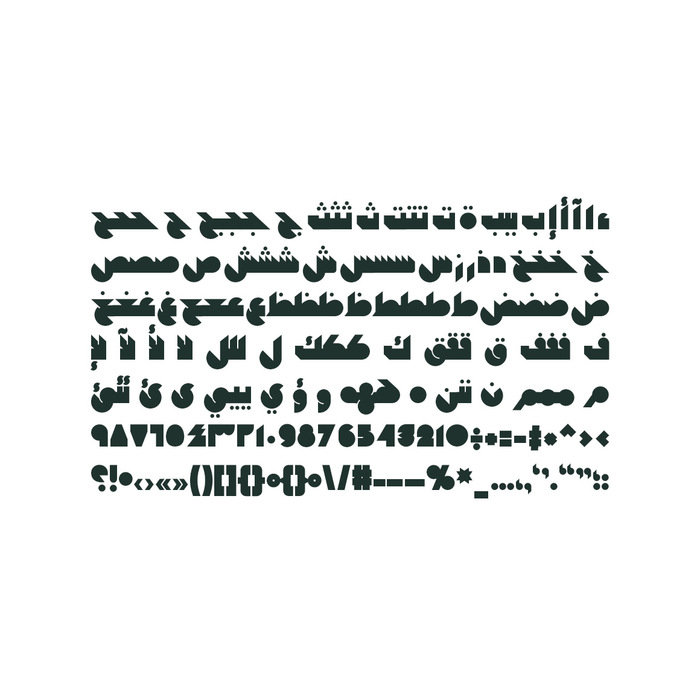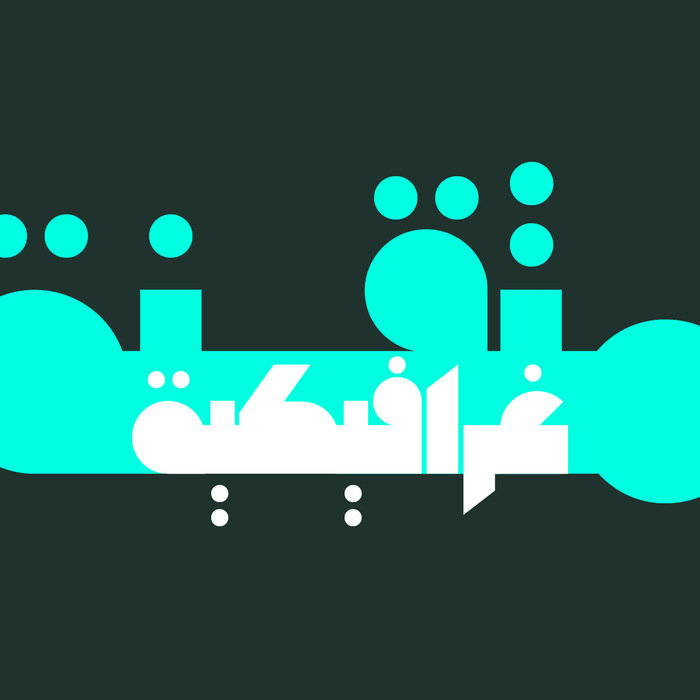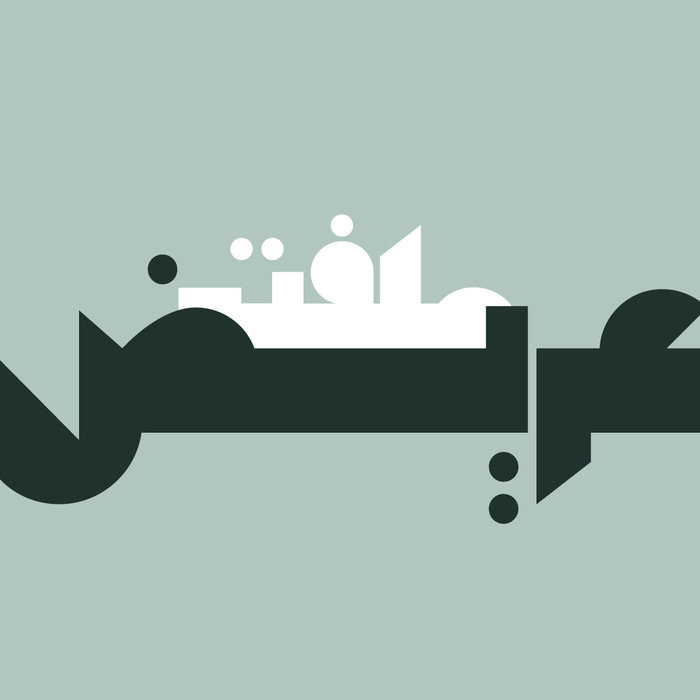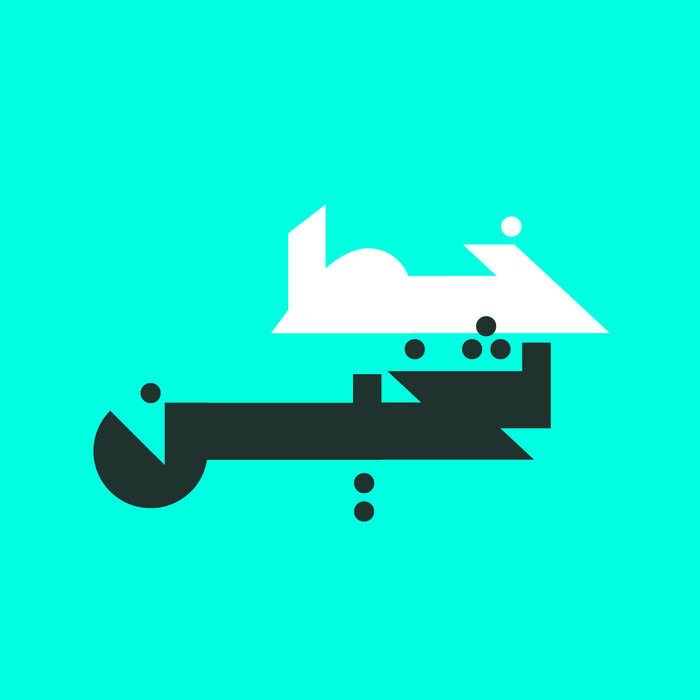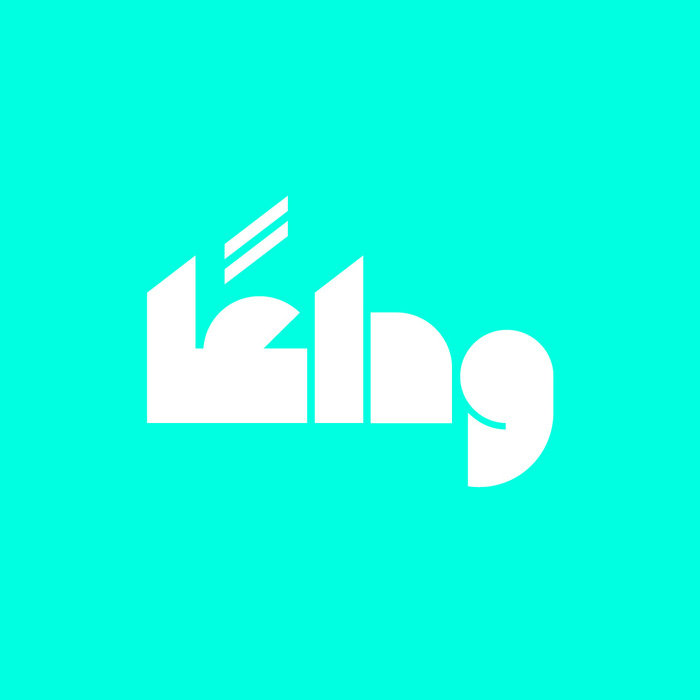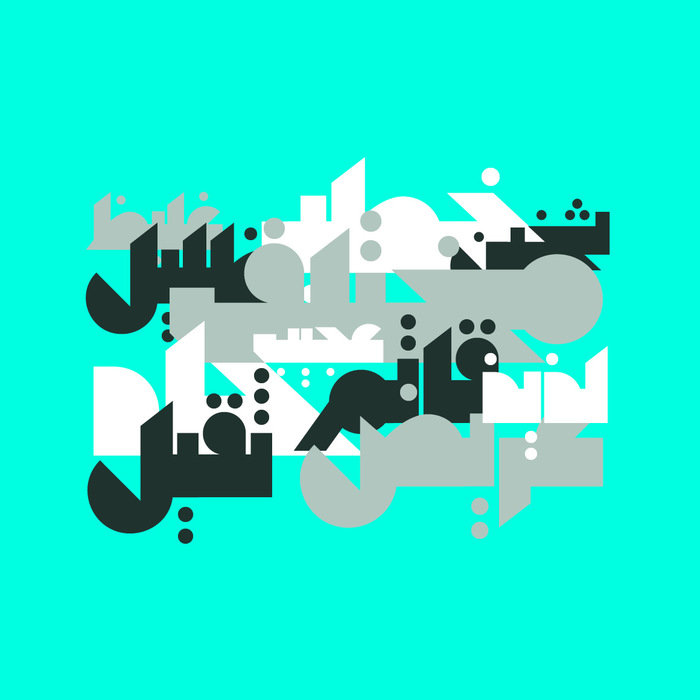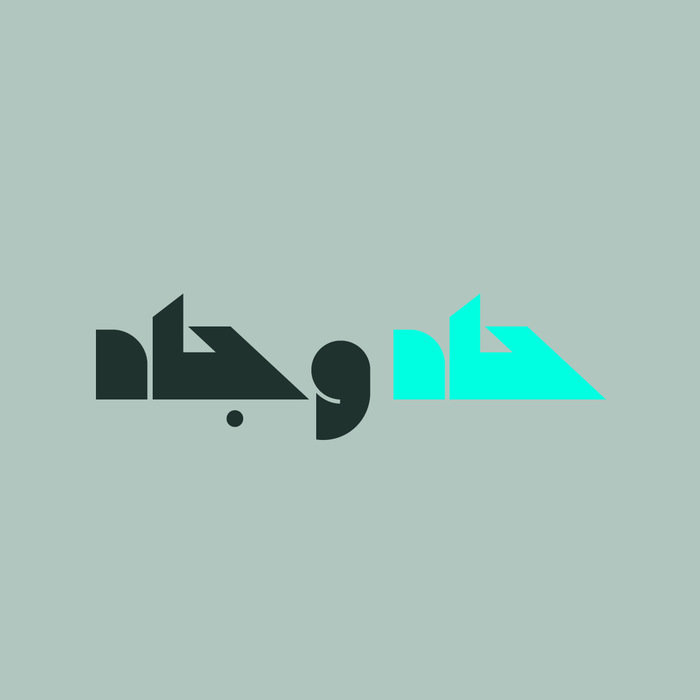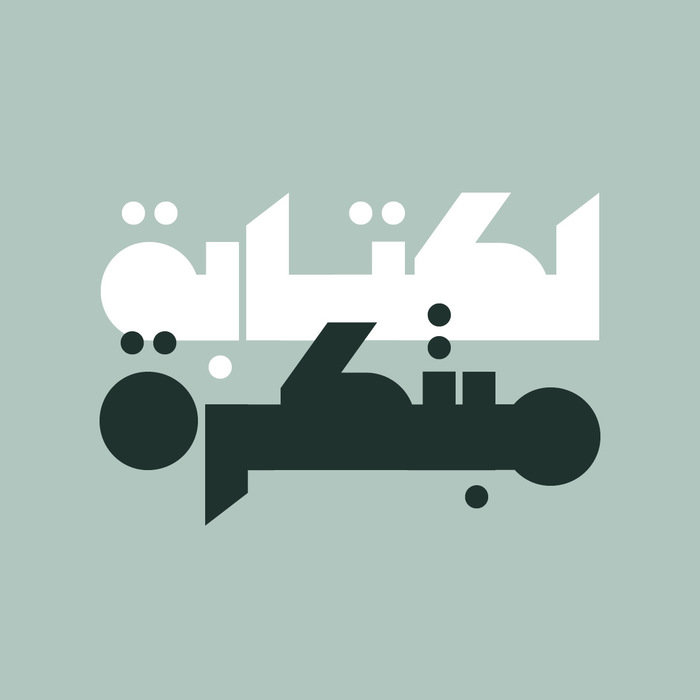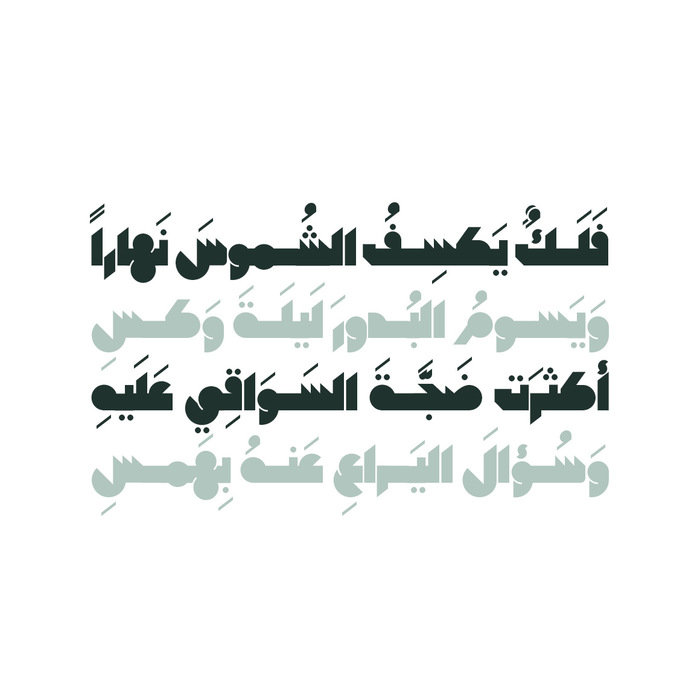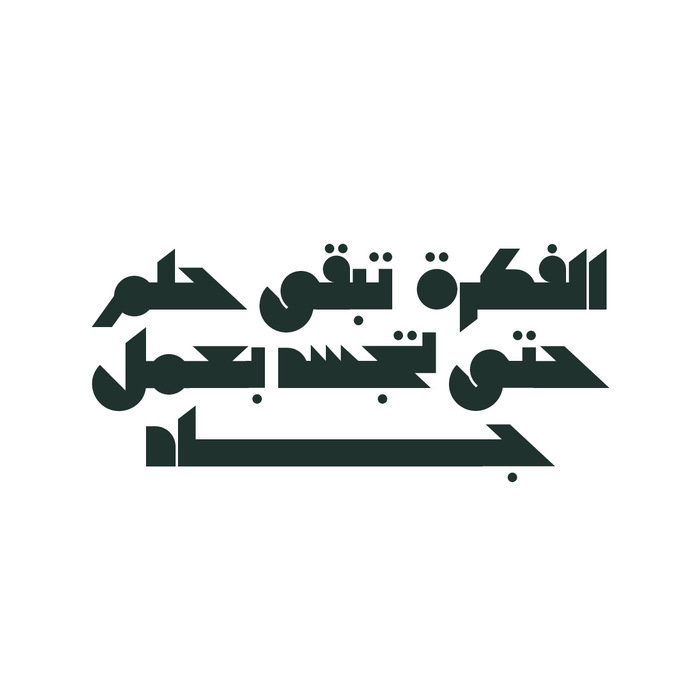
Mateen - Arabic font
Mateen (which is the Arabic word for Durable) is an Arabic display font that features sharp and heavy letterforms. The design is inspired by some Arabic writing techniques that characterized Arab ads in the 1970s and 1980s. Mateen is suitable for creative titles in various applications including web design, print ads, publication and mobile applications.